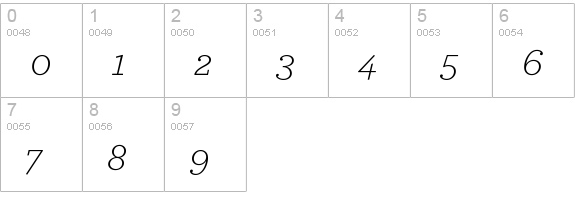
ArcherPro Light Italic Font Details
ArcherPro Light Italic is a refined, elegant, italic variant in the ArcherPro typeface family \xE2\x80\x94 well suited to elegant body text, refined sub-headings, and luxury branding.
ArcherPro Light Italic is a sleek and modern font with a touch of elegance. Its delicate curves and stylish slant make it perfect for adding a sophisticated touch to any design project. The light weight of this font gives it a subtle and refined appearance, making it ideal for conveying a sense of grace and sophistication. And the best part? ArcherPro Light Italic is available for free download at FontsMarket.com. Whether you're working on a branding project, creating a stylish website, or designing eye-catching graphics, this font is sure to elevate your work to the next level. Don't miss out on the opportunity to enhance your designs with this stunning typeface - download ArcherPro Light Italic today and let your creativity shine!